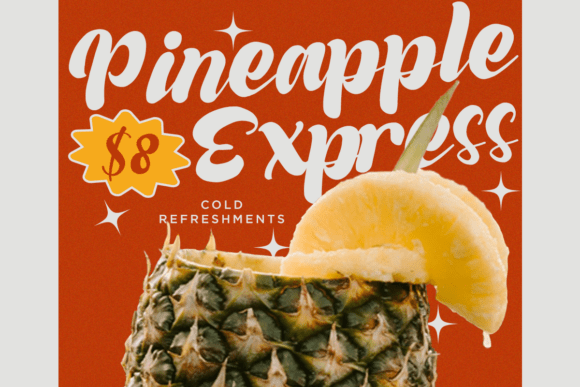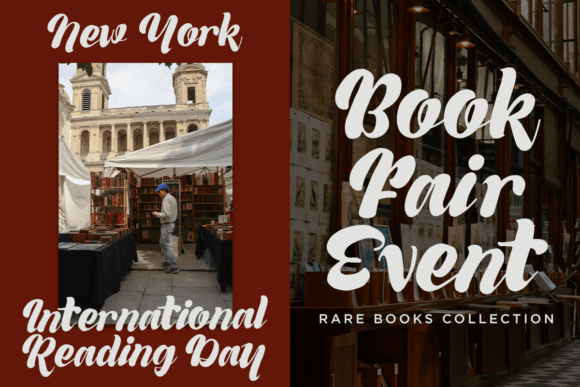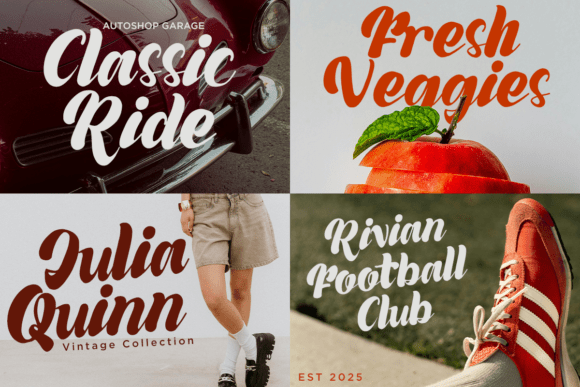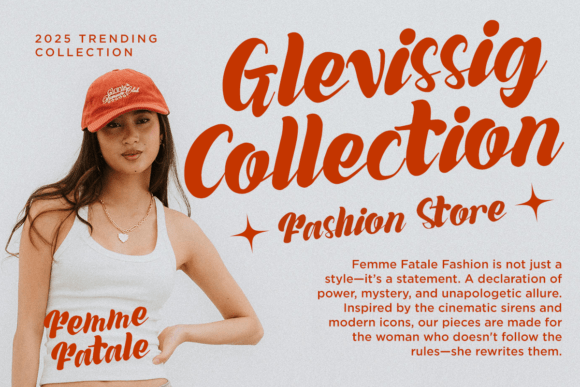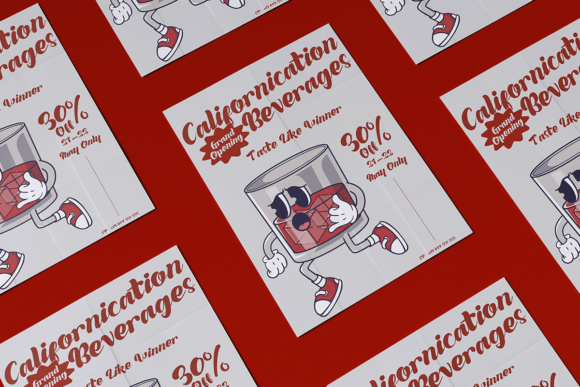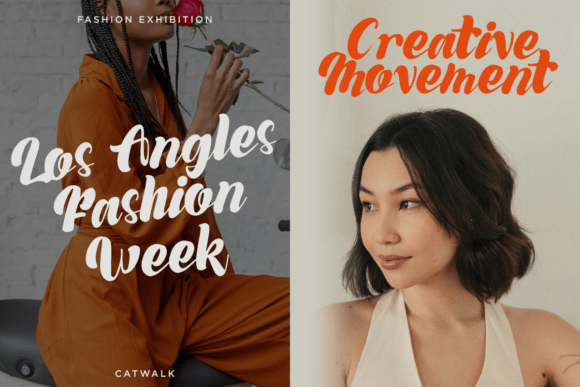
Introducing Figur Renata Font: A Timeless Handwritten Script with Vintage Charm and Modern Versatility
In the world of typography, few fonts manage to capture the essence of nostalgia while exuding modern charm. Figur Renata Font is one such exceptional typeface that seamlessly blends vintage appeal with contemporary versatility. This handwritten script font is designed to bring a touch of classic elegance and dynamic expressiveness to a wide range of design projects, from branding and posters to apparel and retro-inspired creations.
The Essence of Figur Renata Font
Figur Renata is more than just a font; it’s a design statement. Its nostalgic typeface is reminiscent of bygone eras, evoking memories of handwritten notes and vintage posters. Yet, its modern versatility ensures it fits right in with today’s design trends. This unique blend makes Figur Renata an ideal choice for designers looking to add a touch of personality and confidence to their work.
Characteristics of Figur Renata Font
So, what sets Figur Renata apart from other fonts? Here are some of its key characteristics:
- Smooth Curves: The font features smooth, flowing curves that give it a warm, handcrafted feel. These curves add a touch of softness and approachability to any design.
- Strong Letterforms: Despite its smooth curves, Figur Renata boasts strong, confident letterforms. This contrast between softness and strength gives the font its unique dynamic and expressive look.
- Handwritten Script: As a handwritten script font, Figur Renata brings a personal, human touch to designs. It’s perfect for adding a bit of personality and flair to any project.
- Vintage Charm: The font’s nostalgic typeface is perfect for retro-inspired designs, vintage branding, and classic posters.
- Modern Versatility: Figur Renata is not just limited to vintage designs. Its modern appeal ensures it works well with a wide range of contemporary design trends.
Uses of Figur Renata Font
Figur Renata’s versatility makes it suitable for a variety of design projects. Here are some of the best ways to use this exceptional font:
- Branding: Add a touch of personality and confidence to your brand with Figur Renata. Its unique blend of vintage charm and modern appeal makes it perfect for creating memorable brand identities.
- Posters: Whether you’re designing a vintage-style poster or a modern advertisement, Figur Renata’s dynamic letterforms and smooth curves are sure to grab attention.
- Apparel: The font’s handcrafted feel and expressive look make it ideal for designing t-shirts, hoodies, and other apparel items.
- Retro-Inspired Designs: If you’re looking to create designs that evoke a sense of nostalgia, Figur Renata is the perfect choice. Its vintage charm and classic appeal make it suitable for a wide range of retro-inspired projects.
Why Choose Figur Renata Font?
With so many fonts available, why choose Figur Renata? Here are a few compelling reasons:
- Unique Design: Figur Renata’s blend of vintage charm and modern versatility makes it a unique addition to any design project.
- High Versatility: The font’s adaptability ensures it works well with a wide range of design trends and styles.
- Easy to Read: Despite its expressive and dynamic look, Figur Renata remains highly legible, making it suitable for both headlines and body text.
- Handcrafted Feel: The font’s handcrafted feel adds a personal touch to any design, making it perfect for projects that require a human touch.
| Font Name | Figur Renata Font |
| Author | Font Liner |
Figur Renata Font is a timeless handwritten script font that brings a perfect blend of vintage charm and modern versatility to design projects. Its smooth curves, strong letterforms, and dynamic look make it an ideal choice for designers looking to add confidence and personality to their work. Whether you’re working on branding, posters, apparel, or retro-inspired designs, Figur Renata is sure to make a lasting impression. So, why settle for ordinary fonts when you can make a statement with Figur Renata?
Embrace the unique charm of Figur Renata Font and elevate your designs to new heights. With its nostalgic appeal and modern adaptability, this exceptional typeface is set to become a staple in the world of design.